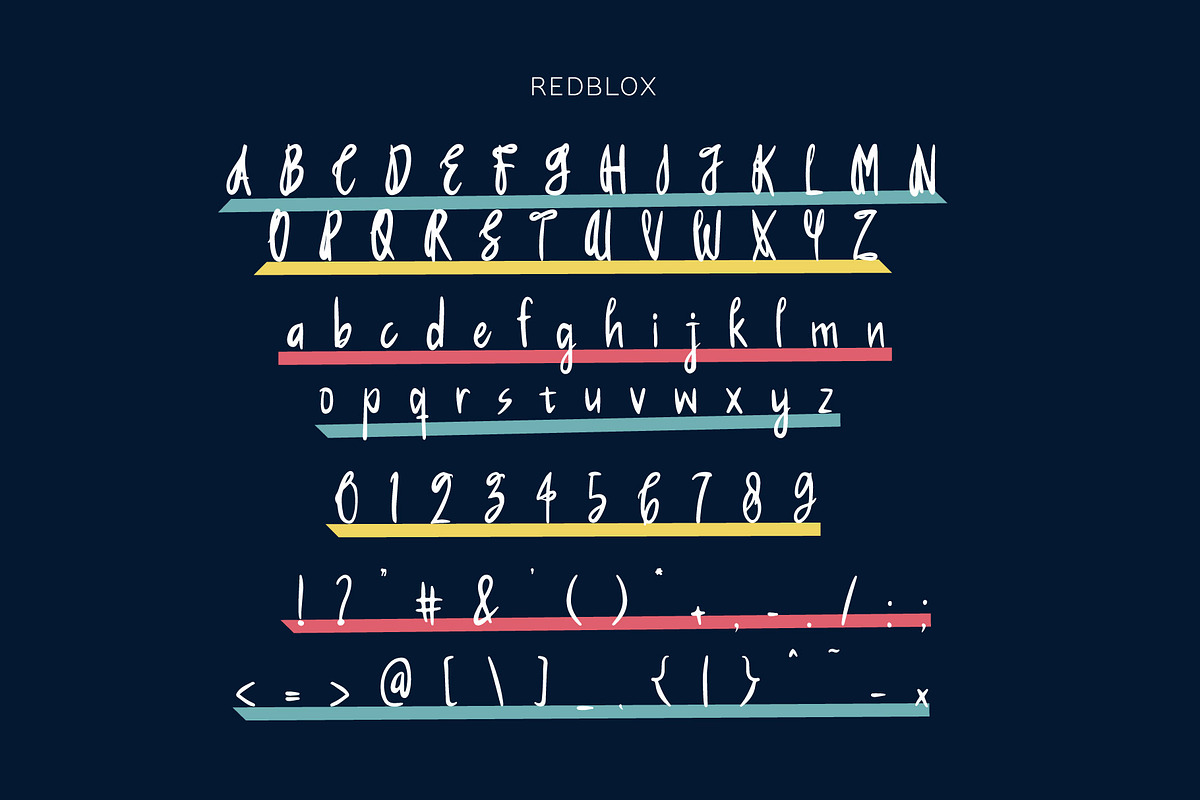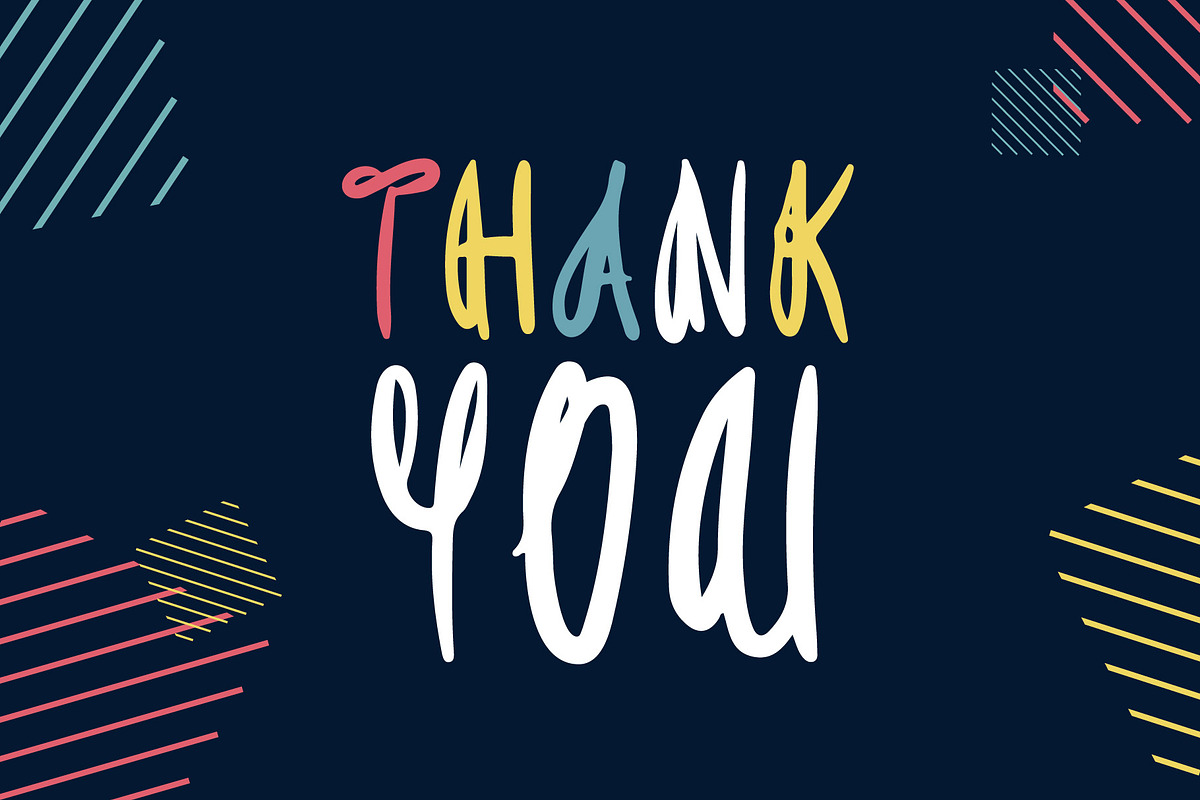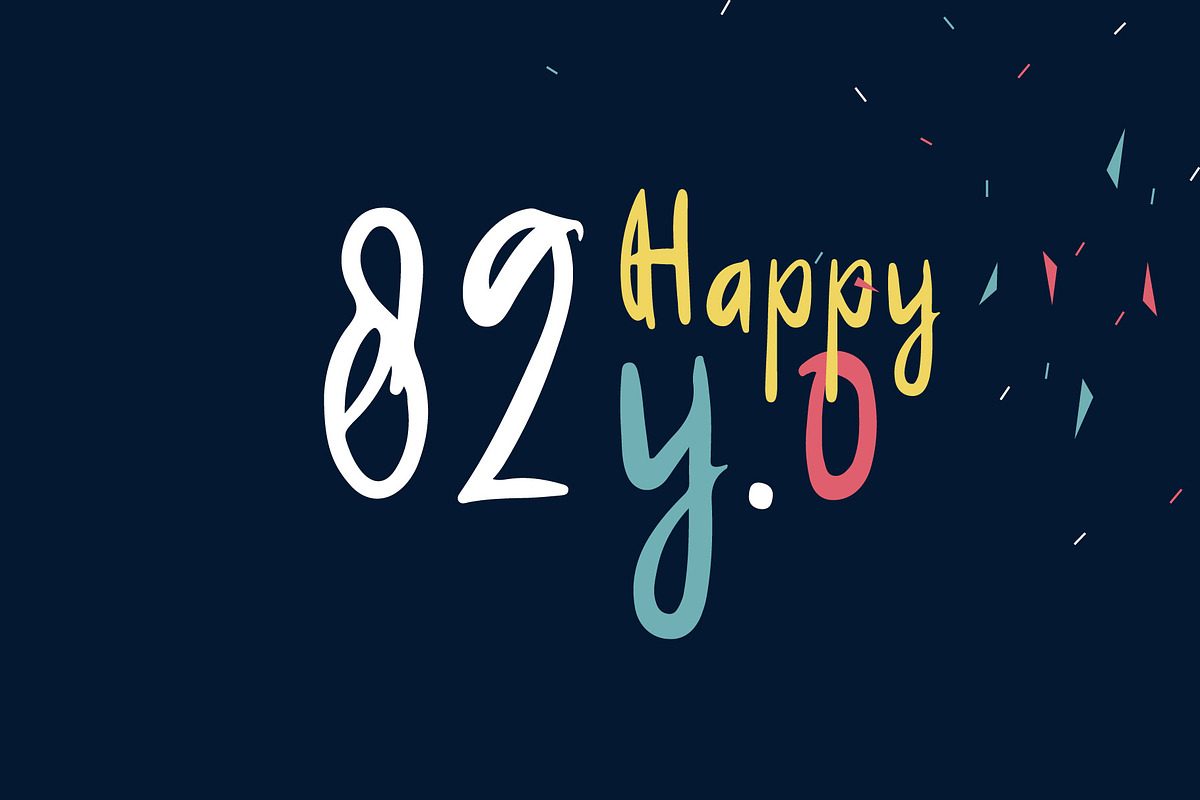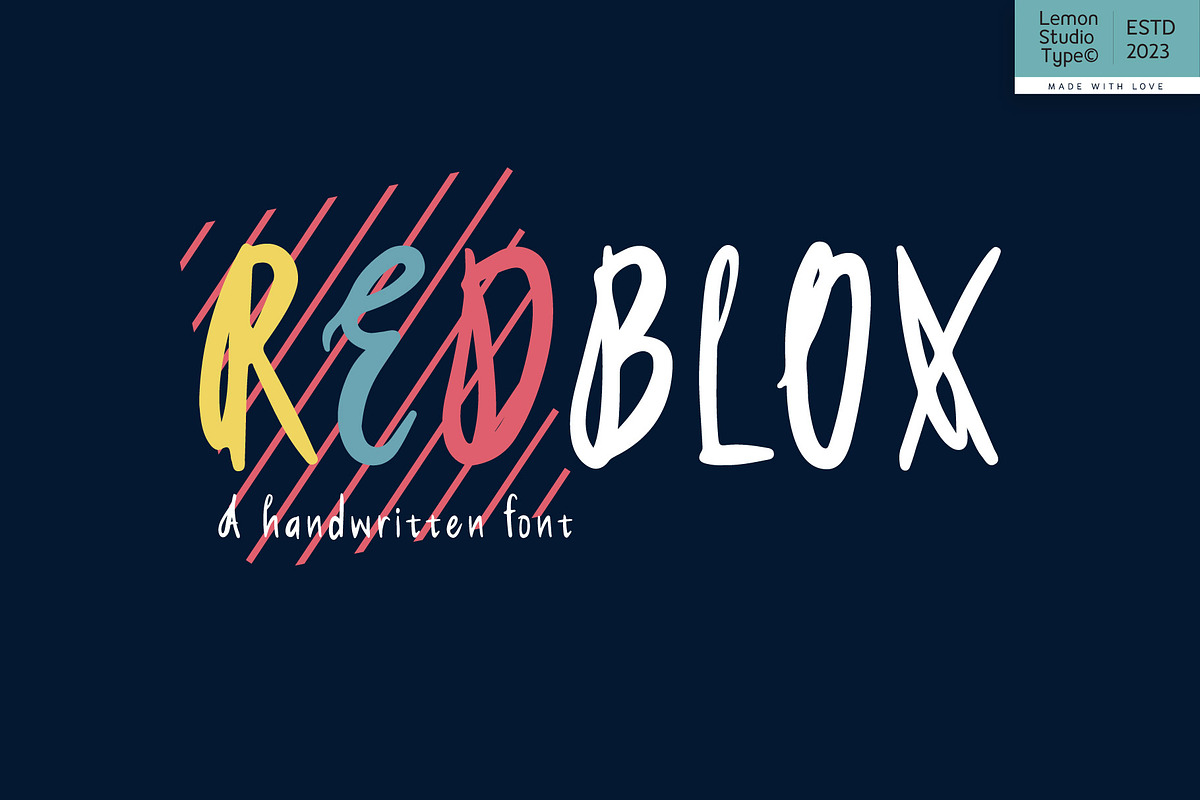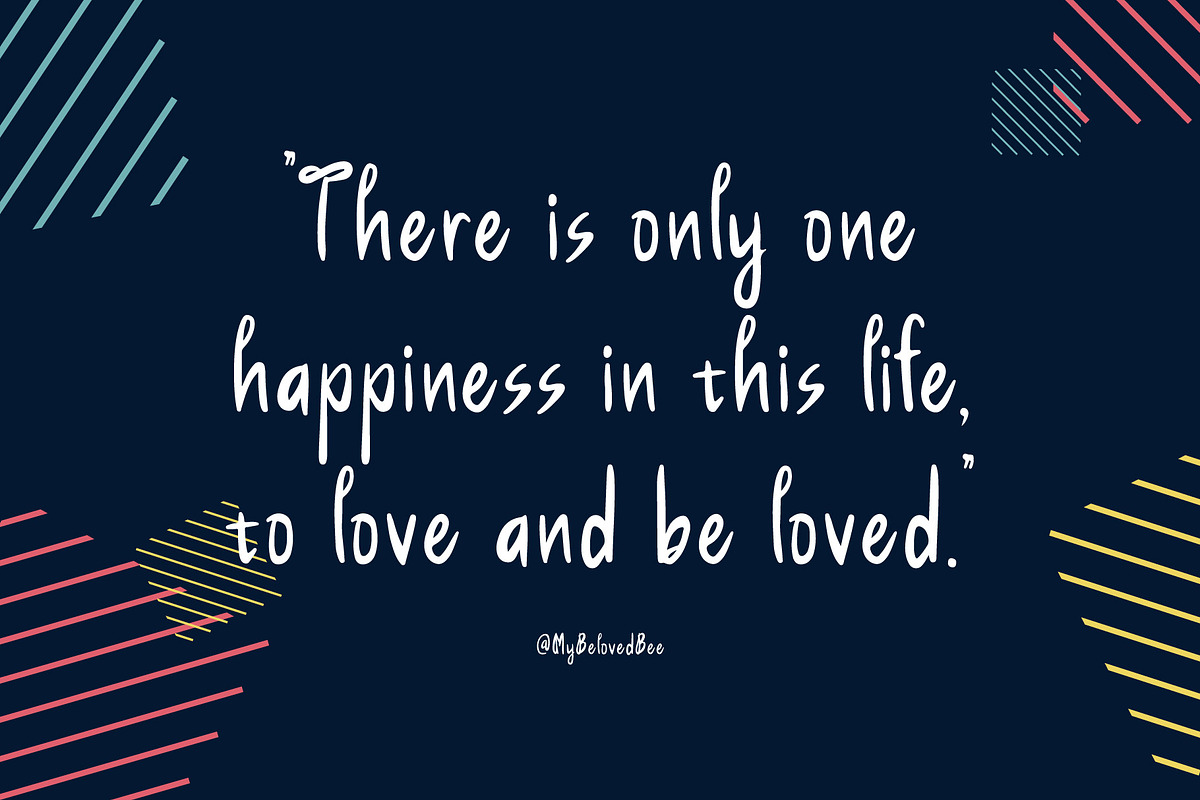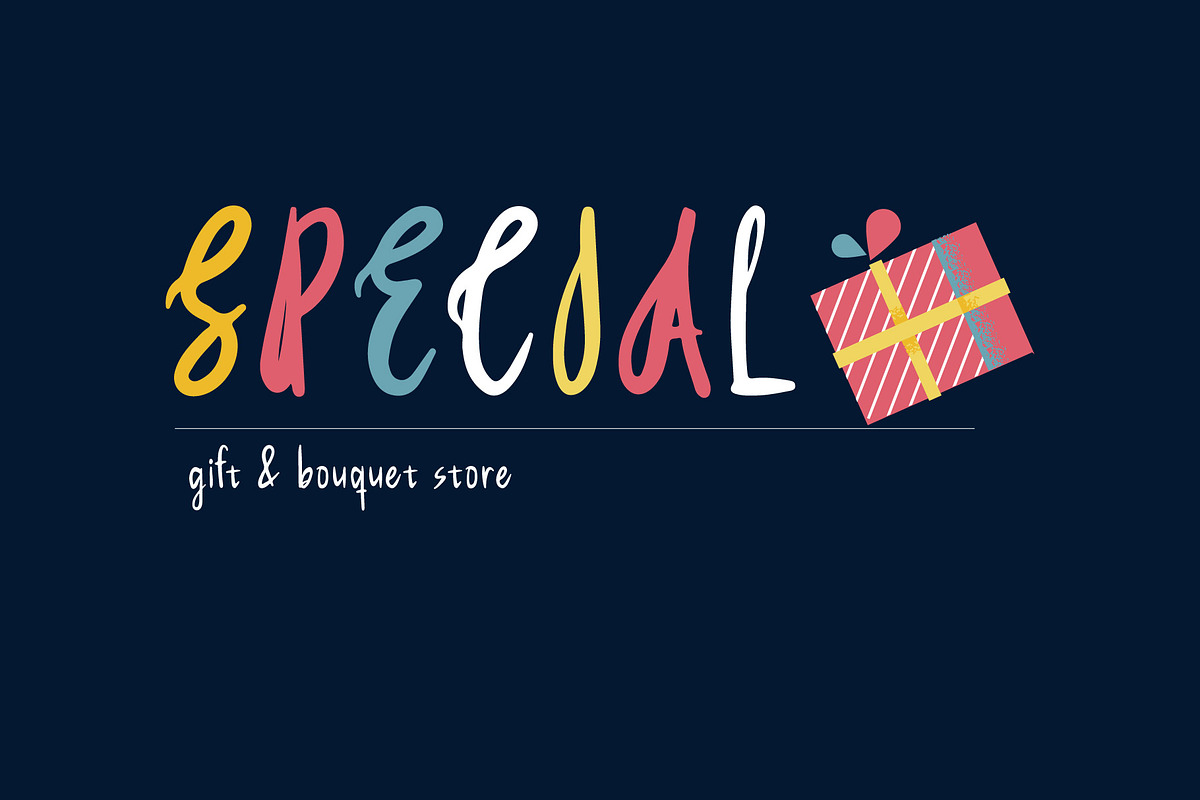
Redblox - Cute Handwritten
Redblox is a handwritten font wrapped in a beautiful brush with an enchanting semi-script style. It's so perfect for use in various design needs if you want to make it enchanting too.